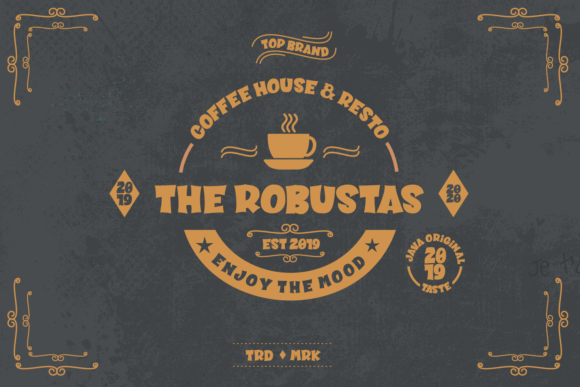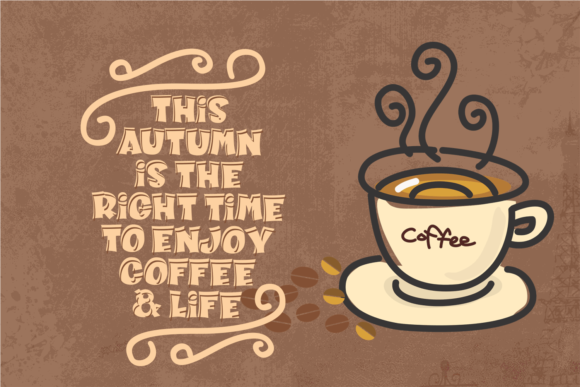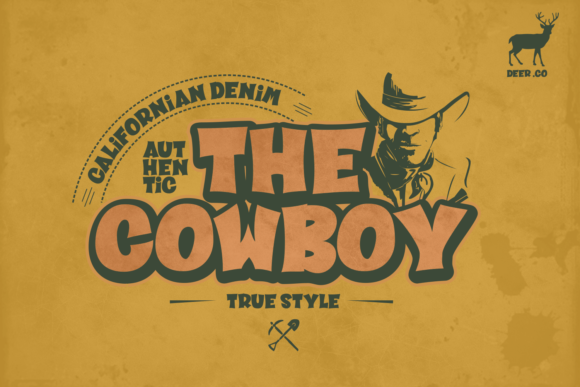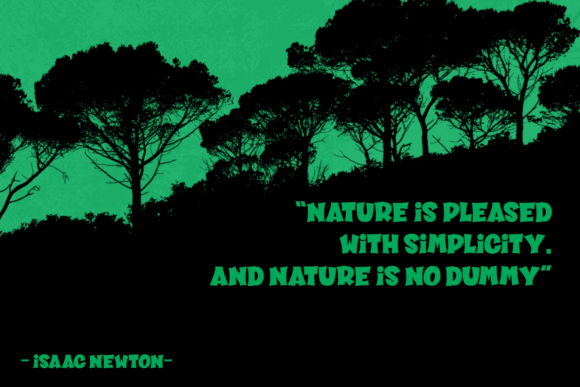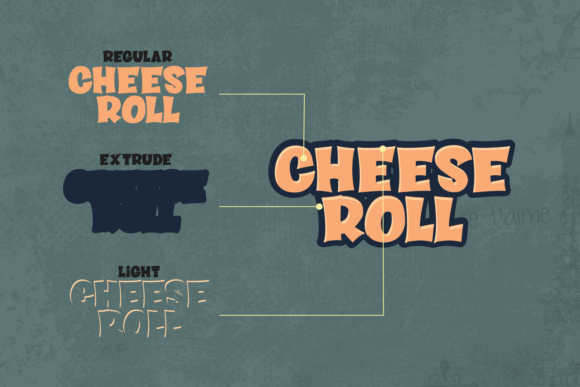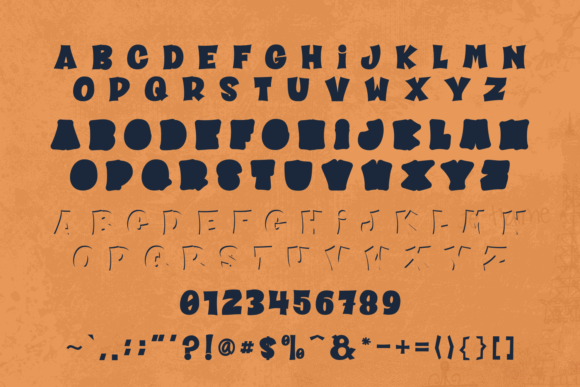
Introducing Cheese Roll Font: The Perfect Blend of Style and Versatility
Are you tired of using the same old fonts for your designs? Look no further! Cheese Roll Font is a beautiful display font that is sure to elevate your creative projects to the next level. Its casual charm makes it appear wonderfully down-to-earth, readable, and incredibly versatile. In this article, we’ll dive into the world of Cheese Roll Font and explore its features, benefits, and uses.
A Font that Stands Out
Cheese Roll Font is a stunning display font that is perfect for designers and crafters looking for a unique and eye-catching font. Its casual and down-to-earth charm makes it an excellent choice for a wide range of design projects, from branding and advertising to packaging and signage. Whether you’re looking to create a bold headline or add some personality to your text, Cheese Roll Font is sure to impress.
Key Features of Cheese Roll Font
• Unique and eye-catching design: Cheese Roll Font features a distinctive and stylish design that is sure to grab attention.
• Casual and down-to-earth charm: The font’s casual charm makes it appear friendly and approachable, perfect for brands looking to connect with their audience.
• Highly readable: Despite its unique design, Cheese Roll Font is incredibly readable, making it perfect for use on busy backgrounds or as a standalone headline.
• Versatile: Cheese Roll Font is incredibly versatile and can be used in a wide range of design projects, from digital to print.
Benefits of Using Cheese Roll Font
So, why should you choose Cheese Roll Font for your design projects? Here are just a few benefits of using this amazing font:
• Adds personality to your text: Cheese Roll Font adds a touch of personality to your text, making it perfect for brands looking to stand out from the crowd.
• Perfect for branding and advertising: The font’s unique design and casual charm make it perfect for use in branding and advertising campaigns.
• Great for packaging and signage: Cheese Roll Font is also perfect for use on packaging and signage, where its eye-catching design is sure to grab attention.
• Easily pairs with other fonts: Cheese Roll Font is incredibly versatile and can be easily paired with other fonts to create a unique and stylish look.
Using Cheese Roll Font in Your Design Projects
So, how can you use Cheese Roll Font in your design projects? Here are a few ideas to get you started:
• Headlines and titles: Use Cheese Roll Font as a headline or title font to add a touch of personality to your text.
• Branding and advertising: Use the font in your branding and advertising campaigns to create a unique and eye-catching look.
• Packaging and signage: Use Cheese Roll Font on packaging and signage to grab attention and add some personality to your products.
• Digital and print projects: The font is perfect for use in both digital and print projects, from social media graphics to brochures and flyers.
In conclusion, Cheese Roll Font is a beautiful display font that is perfect for designers and crafters looking for a unique and eye-catching font. Its casual charm, readability, and versatility make it an excellent choice for a wide range of design projects. Whether you’re looking to create a bold headline or add some personality to your text, Cheese Roll Font is sure to impress. So why not give it a try and see the difference it can make in your design projects?
Get Creative with Cheese Roll Font
Ready to get creative with Cheese Roll Font? Here are a few tips to help you get started:
• Experiment with different colors: Try pairing Cheese Roll Font with different colors to create a unique and eye-catching look.
• Play with font sizes: Experiment with different font sizes to create a bold and eye-catching headline or a more subtle and elegant look.
• Pair with other fonts: Try pairing Cheese Roll Font with other fonts to create a unique and stylish look.